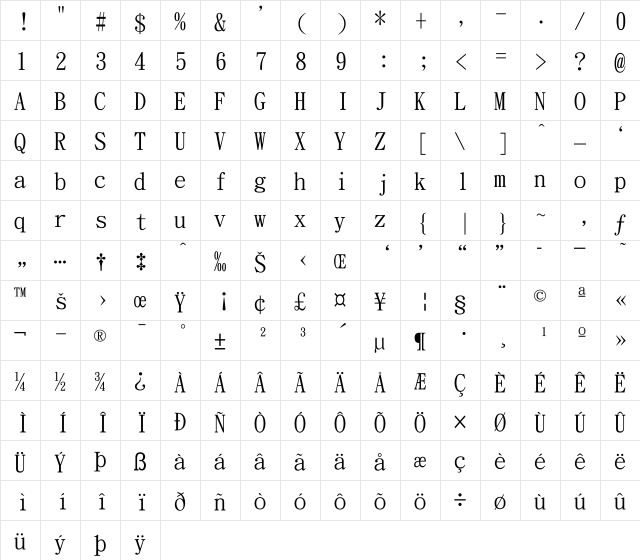
DFKai-SB Regular
Design Context for DFKai-SB Typeface
DFKai-SB takes a measured approach to typography — its balanced proportions and neutral character make it a reliable workhorse for both digital and print work.